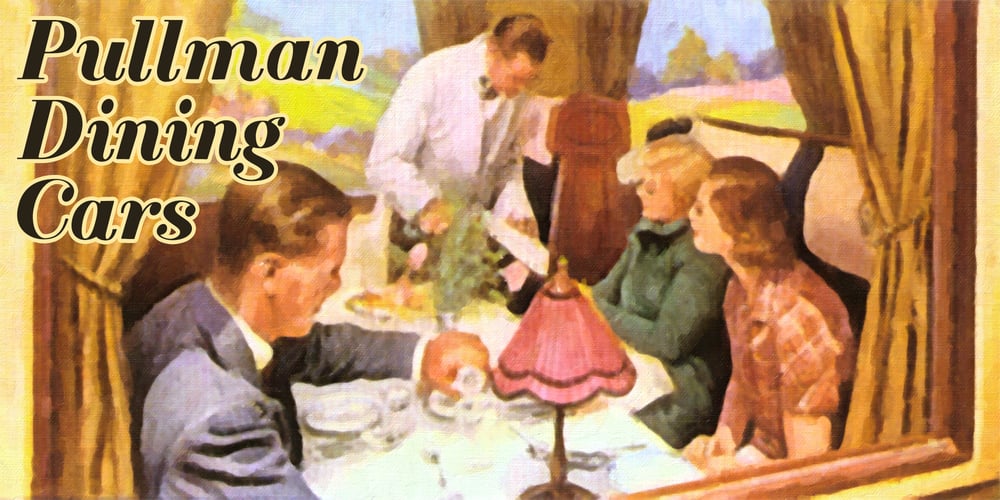
Albion Sharp Italic
Albion Sharp Italic font
Albion Sharp Italic Font Family was designed by Paul James Lloyd and published by Greater Albion Typefounders. Albion Sharp Italic contains 1 styles and family package options. Albion Sharp Italic is an elegant sharply cut italic display face. Its classical elegance is ideal for setting headings alongside conventional body text faces, and an ideal way to imbue such settings with a little life and energy.